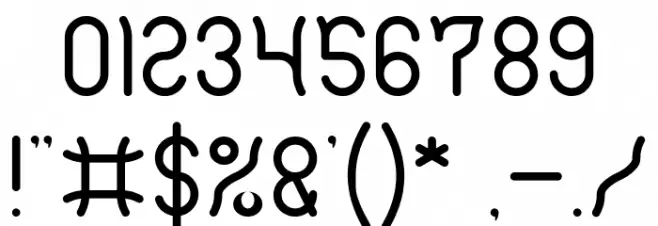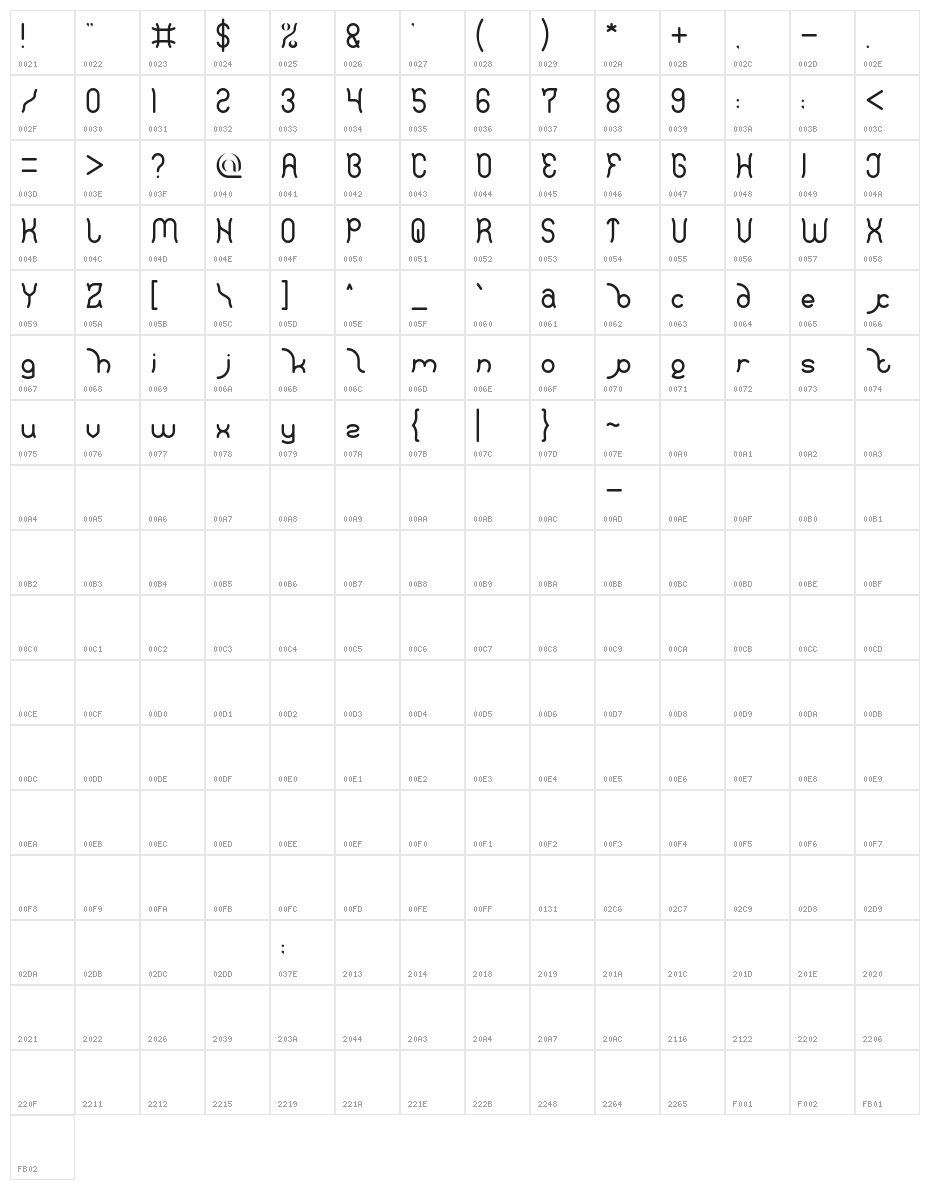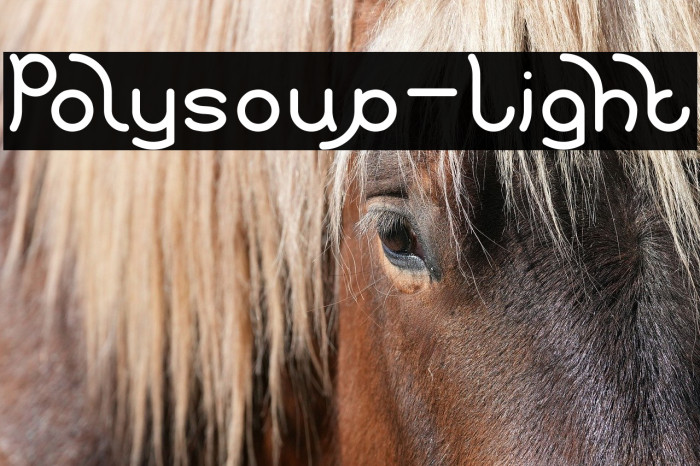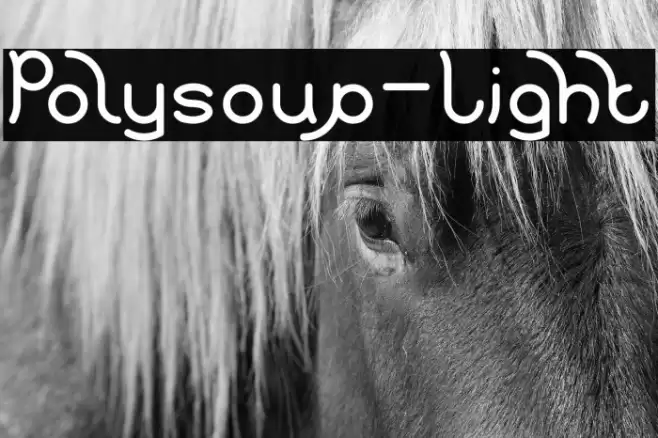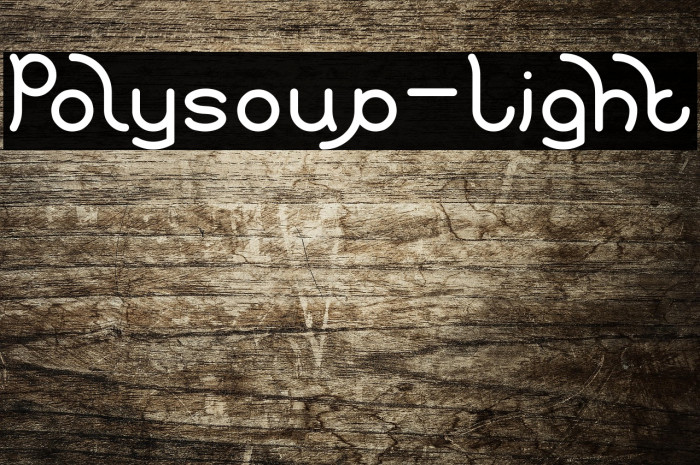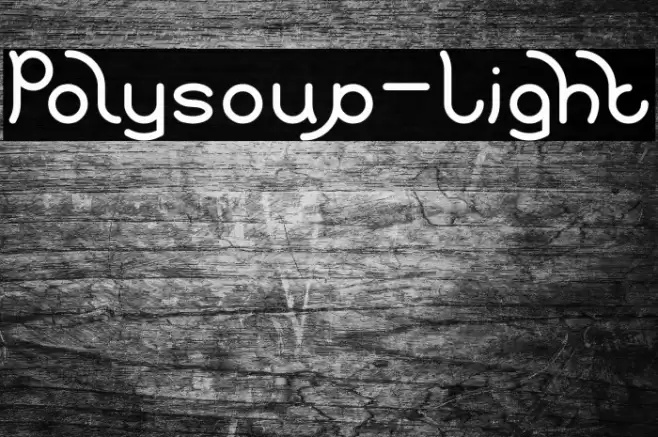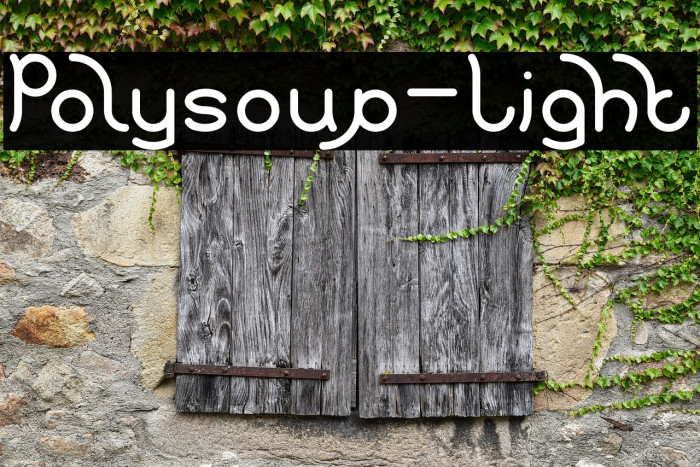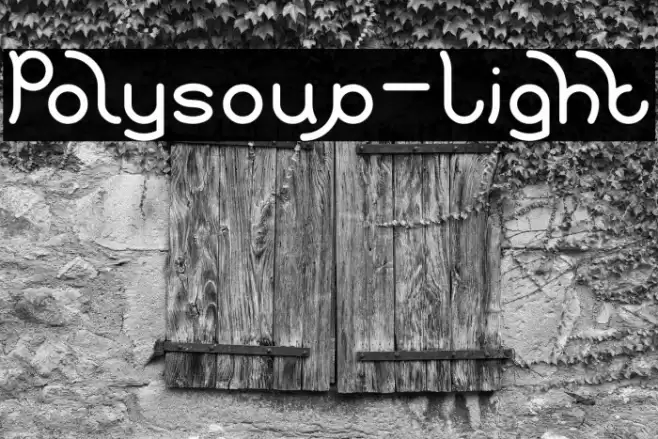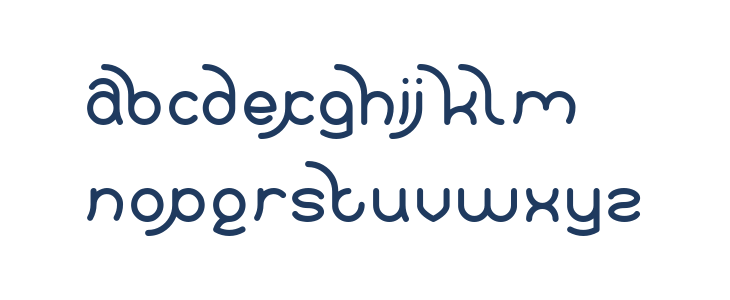
Polysoup-Light Font
Polysoup-Light Description
This font features a playful and unique design with rounded, flowing lines that give it a whimsical and modern appearance. The characters are bold and have a consistent stroke width, creating a uniform look across both uppercase and lowercase letters. The numbers and special characters maintain the same playful style, making the font versatile for various uses. The overall design is clean yet distinctive, with a touch of creativity that sets it apart from more traditional fonts.